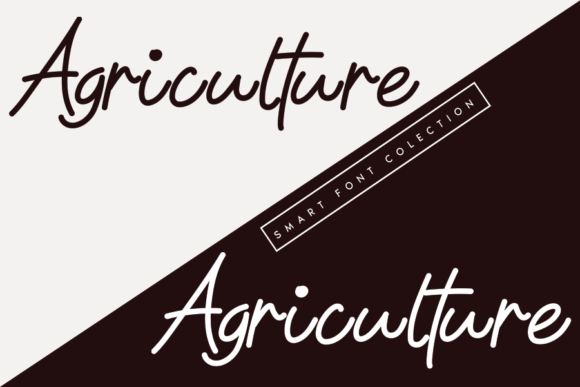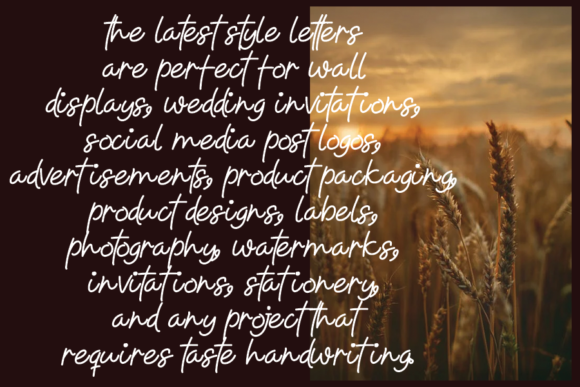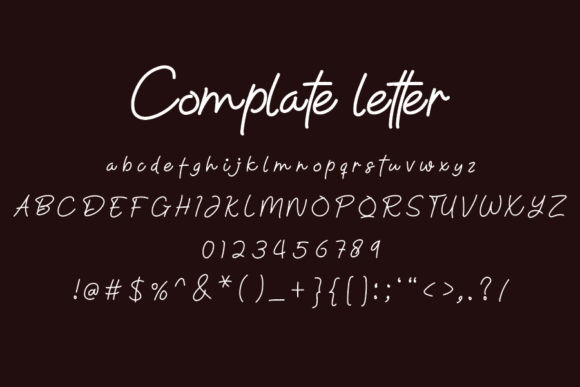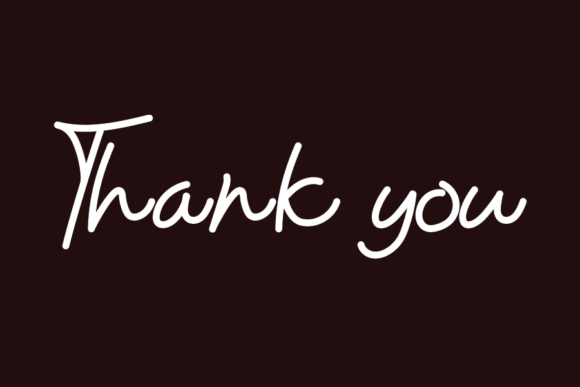
Agriculture Font: Elevate Your Designs with Classic Elegance
Are you a designer or crafter looking for a font that exudes charm and sophistication? Look no further than Agriculture Font, a stunning handwritten font that pays homage to classic calligraphy. With its elegant and refined aesthetic, Agriculture Font is the perfect choice for a wide range of design projects, from branding and headings to wedding designs, invitations, signatures, logos, labels, and more.
The Charm of Agriculture Font
Agriculture Font is a beautifully crafted font that feels equally charming and elegant. Its handwritten style is reminiscent of traditional calligraphy, with flowing lines and delicate curves that add a touch of sophistication to any design. Whether you’re creating a logo, invitation, or social media graphic, Agriculture Font is sure to make your project stand out.
One of the best things about Agriculture Font is its versatility. This stunning font can be used for a wide range of design projects, including:
- Branding: Create a lasting impression with Agriculture Font, perfect for logos, business cards, and letterheads.
- Wedding designs: Add a touch of elegance to your wedding invitations, programs, and decorations.
- Invitations: Create beautiful and unique invitations for parties, events, and celebrations.
- Signatures: Add a personal touch to your email signatures, documents, and letters.
- Logos: Create a professional and stylish logo for your business or brand.
- Labels: Add a touch of sophistication to your product labels, packaging, and marketing materials.
Why Choose Agriculture Font?
So why choose Agriculture Font over other fonts? Here are just a few reasons:
- Unique and elegant style: Agriculture Font has a distinctive and refined aesthetic that sets it apart from other fonts.
- High-quality design: Agriculture Font is carefully crafted to ensure that every letter and character is of the highest quality.
- Easy to read: Despite its elegant style, Agriculture Font is easy to read and understand, making it perfect for body text and headings.
- Flexible and versatile: Agriculture Font can be used for a wide range of design projects, from digital graphics to print materials.
Tips for Using Agriculture Font
To get the most out of Agriculture Font, here are a few tips to keep in mind:
- Use it sparingly: Agriculture Font is a statement font, so use it sparingly to make a lasting impression.
- Pair it with other fonts: Combine Agriculture Font with other fonts to create a unique and interesting contrast.
- Experiment with colors: Agriculture Font looks great in a range of colors, so don’t be afraid to experiment and find the perfect shade.
- Pay attention to spacing: Make sure to leave enough space between letters and lines to ensure that Agriculture Font looks elegant and refined.
Agriculture Font is a stunning handwritten font that is sure to elevate your design projects to the highest level. With its elegant and refined aesthetic, versatility, and high-quality design, Agriculture Font is the perfect choice for designers and crafters looking for a font that exudes charm and sophistication. Whether you’re creating a logo, invitation, or social media graphic, Agriculture Font is sure to make your project stand out.